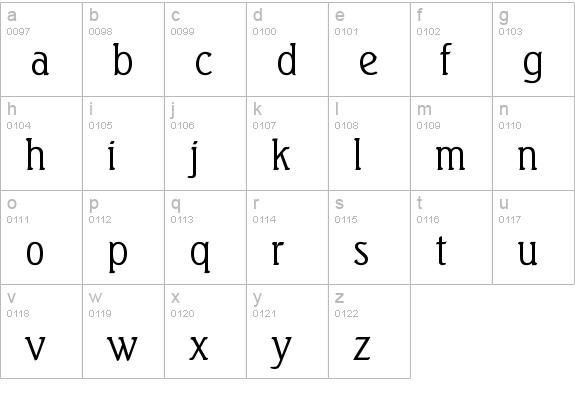
Seagull-Light Font Details
Seagull-Light is a refined, elegant variant in the Seagull typeface family \xE2\x80\x94 well suited to elegant body text, refined sub-headings, and luxury branding.
Seagull-Light font is a stunning typeface that effortlessly captures the essence of graceful serenity. Its delicate curves and clean lines give it a sense of elegance and poise, making it the perfect choice for projects that require a touch of sophistication. This font exudes a sense of lightness and freedom, just like a seagull soaring through the open skies. Its gentle strokes and airy letterforms create a harmonious visual experience that is both pleasing to the eye and easy to read. Whether used in print or digital designs, Seagull-Light font adds a touch of refined beauty to any project. One of the best features of Seagull-Light font is that it is freely available to download at FontsMarket.com. This means that you can easily access and utilize this font for your personal or commercial projects without any cost. With its generous availability, Seagull-Light font offers a valuable resource for designers, enabling them to create stunning visuals without breaking the bank. So, if you're looking for a font that combines elegance, serenity, and freedom, Seagull-Light font is the perfect choice. Its timeless beauty and availability make it a must-have in every designer's toolkit. Download it for free at FontsMarket.com and let your creativity take flight.